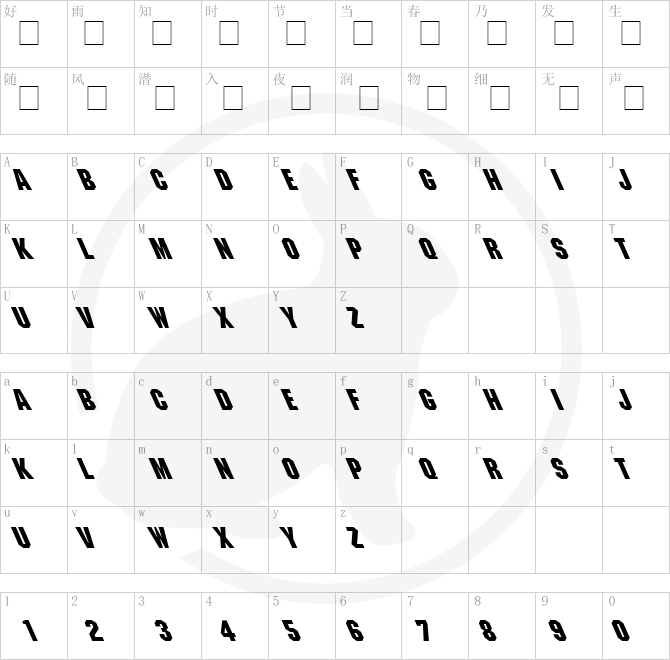
- Font Name:Machine-Light Leftyie
- Full Name:Machine Light Leftyie
Machine-Light-Leftyie.ttf is a very beautiful artistic font, Machine-Light-Leftyie.ttf is widely used in the design and printing of various books and pictures,Machine-Light-Leftyie.ttf has a strong visual impact,Machine-Light-Leftyie.ttf is a commonly used font in newspapers, magazines and books, and is used in posters, e-commerce Poster design, store design, logo design, font design and other fields.Machine-Light-Leftyie.